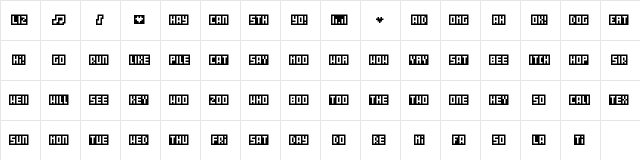
WordBits Medium Free Font
WordBits Medium
Design Context for WordBits
WordBits is a composed and adaptable typeface that performs quietly and consistently across a wide range of design contexts.
Pro Tip: Use WordBits in both headline and body roles to test its range before committing to a single application.